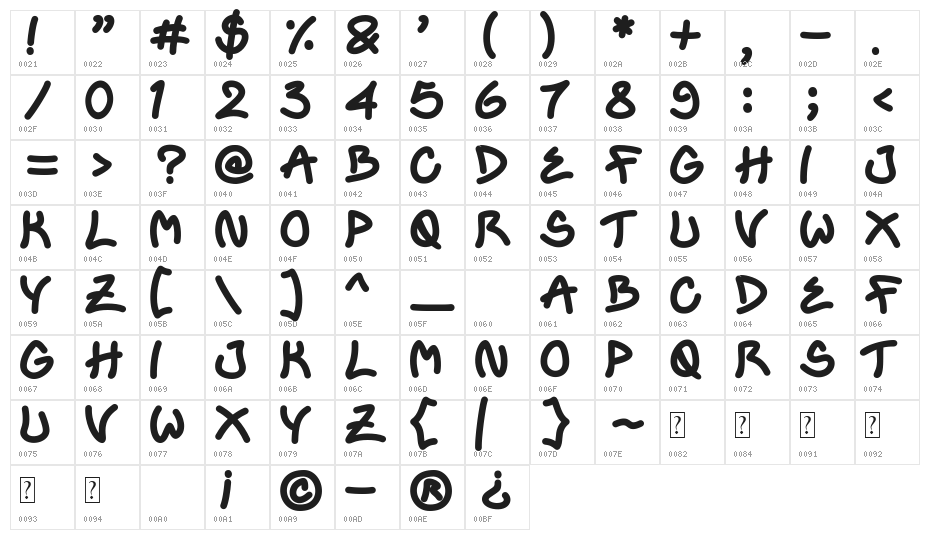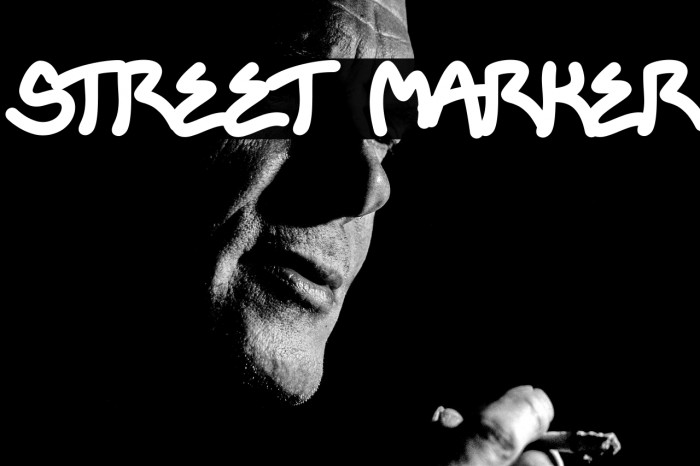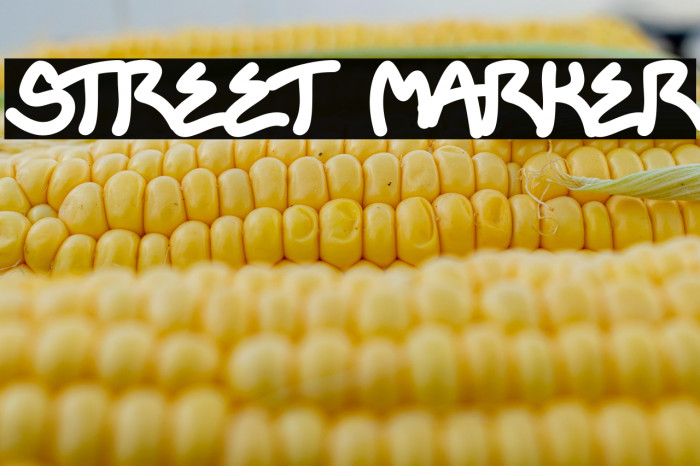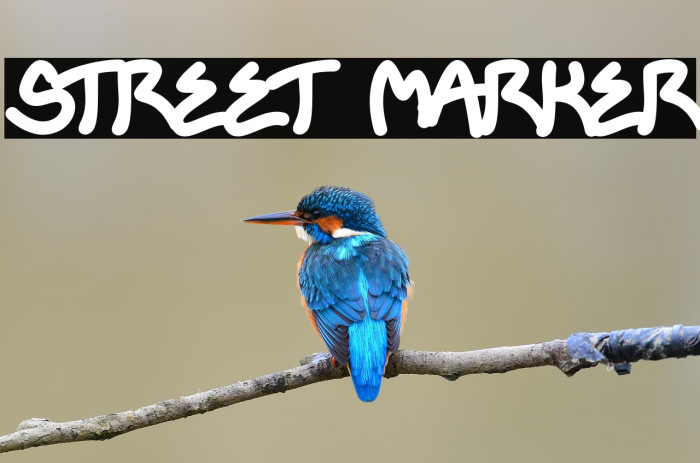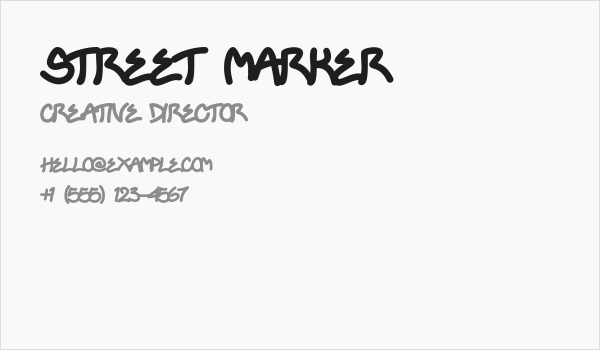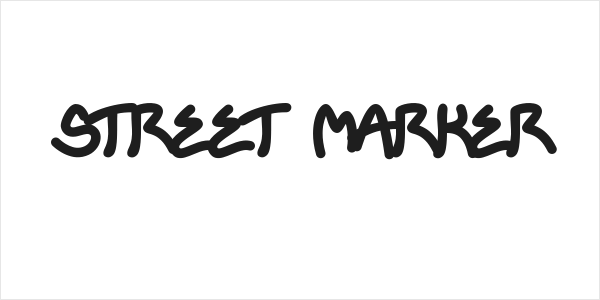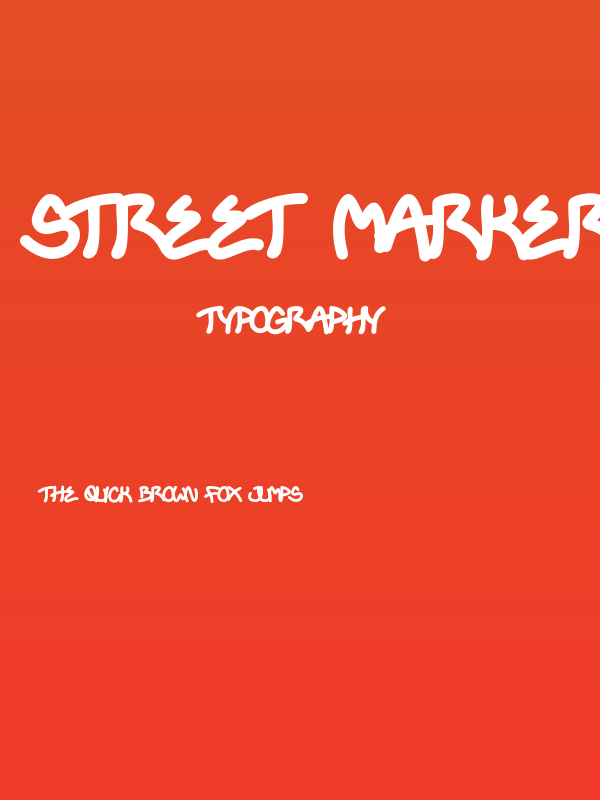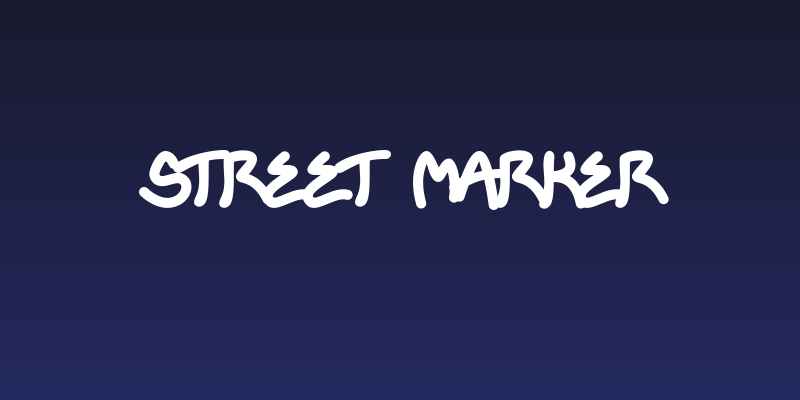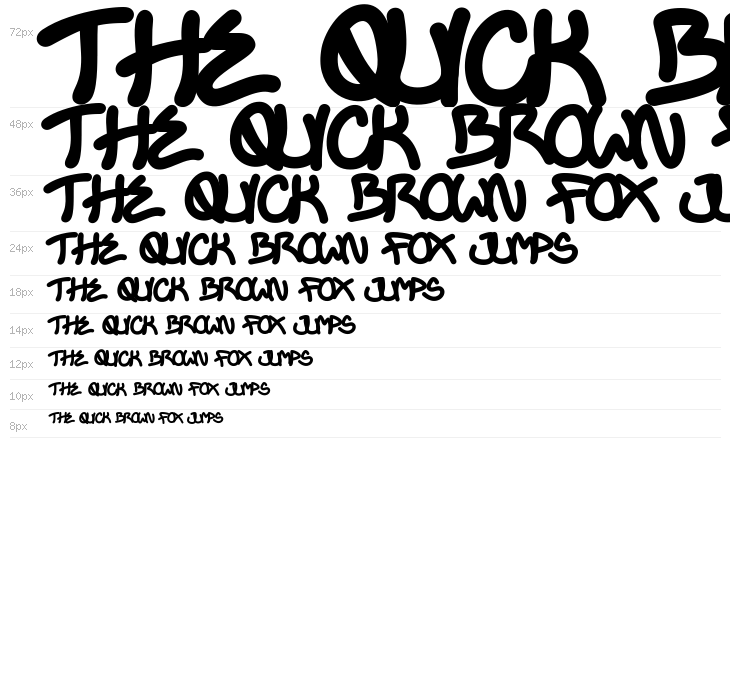
STREET MARKER Font
STREET MARKER Description
This font exudes a bold and energetic street art vibe, reminiscent of graffiti styles. The characters are thick and rounded, with a dynamic flow that suggests movement and spontaneity. The uppercase and lowercase letters maintain a consistent style, with exaggerated curves and a slightly slanted orientation, giving the impression of being hand-drawn with a marker. The numbers and special characters follow the same aesthetic, ensuring uniformity across all elements. The overall appearance is informal and expressive, making it ideal for projects that require a touch of urban flair.
| Overall Style | Urban, Graffiti, Expressive |
| Use Case | Logos, Posters, Headlines |
| Proposed Projects | Perfect for street art-themed designs, urban branding, posters, and album covers. |